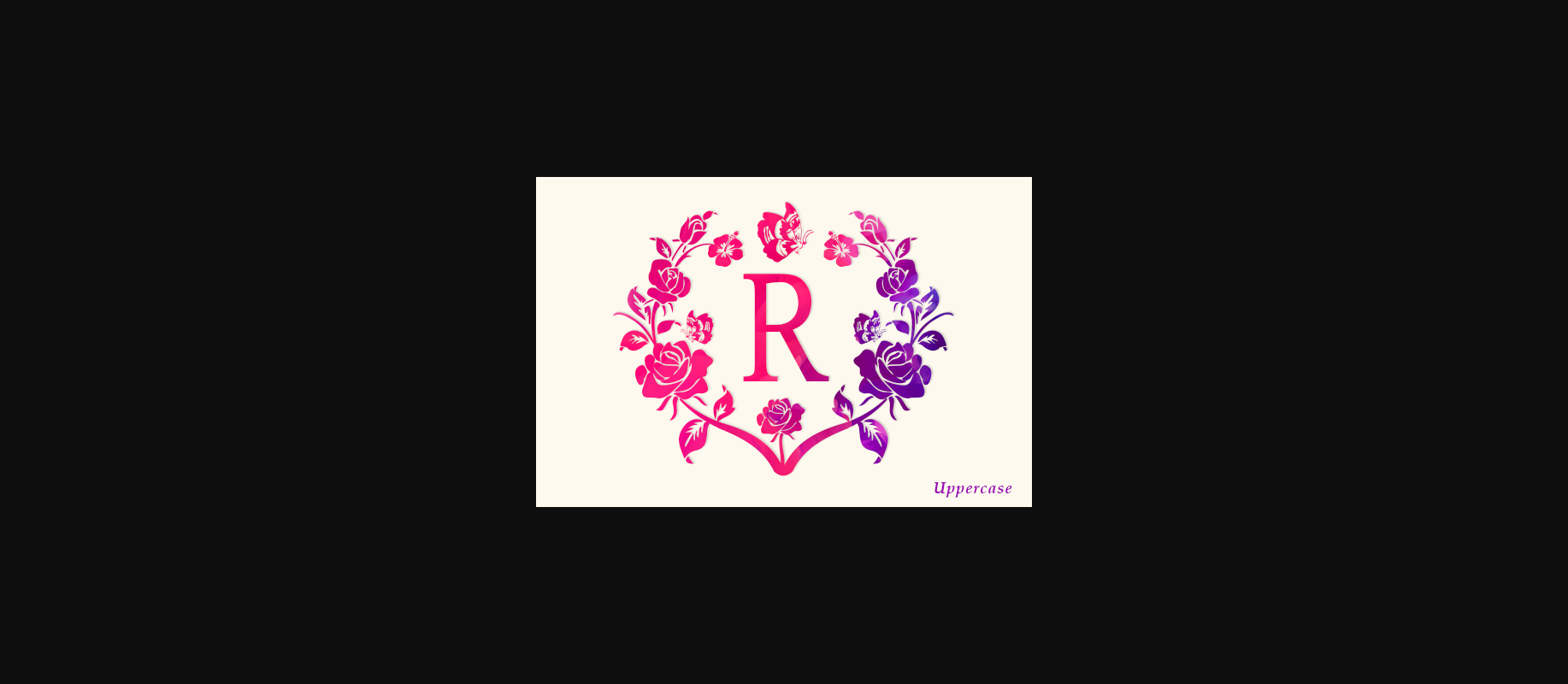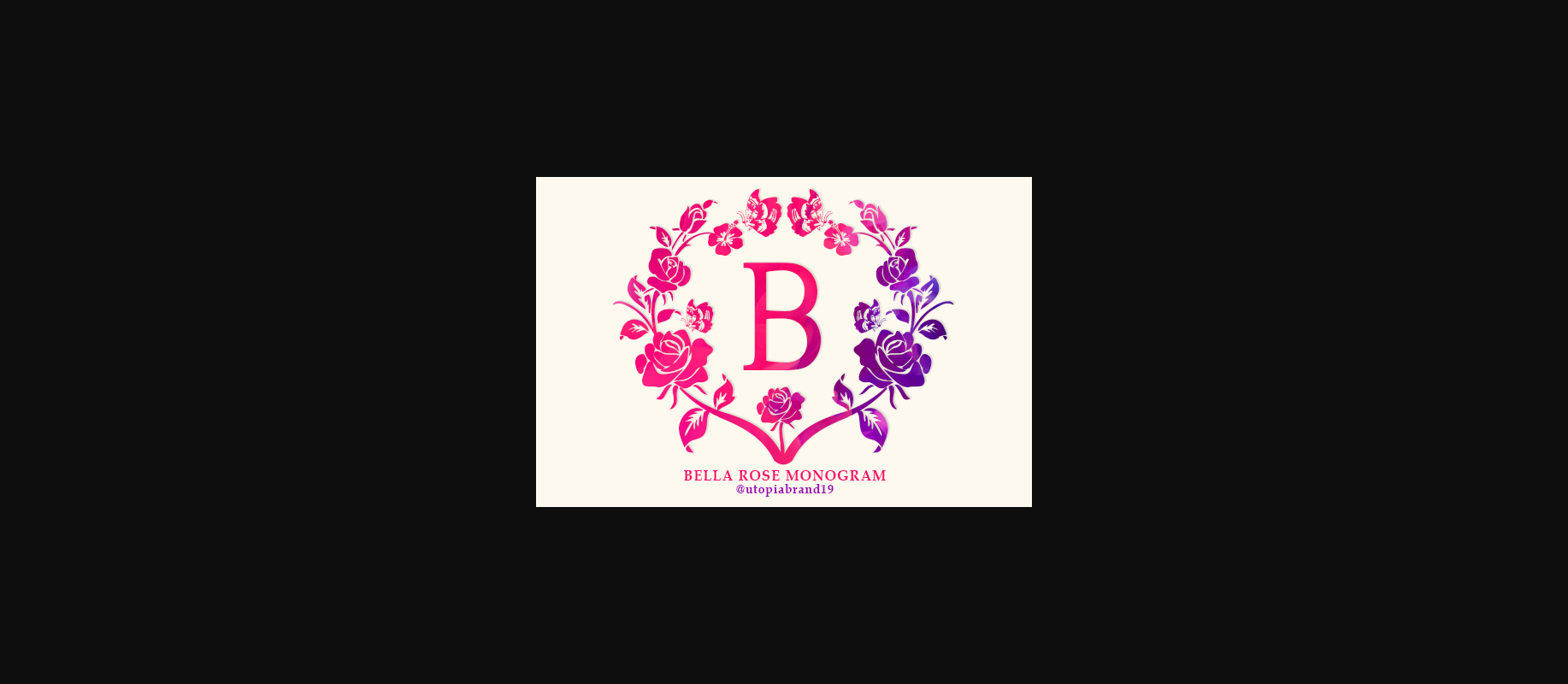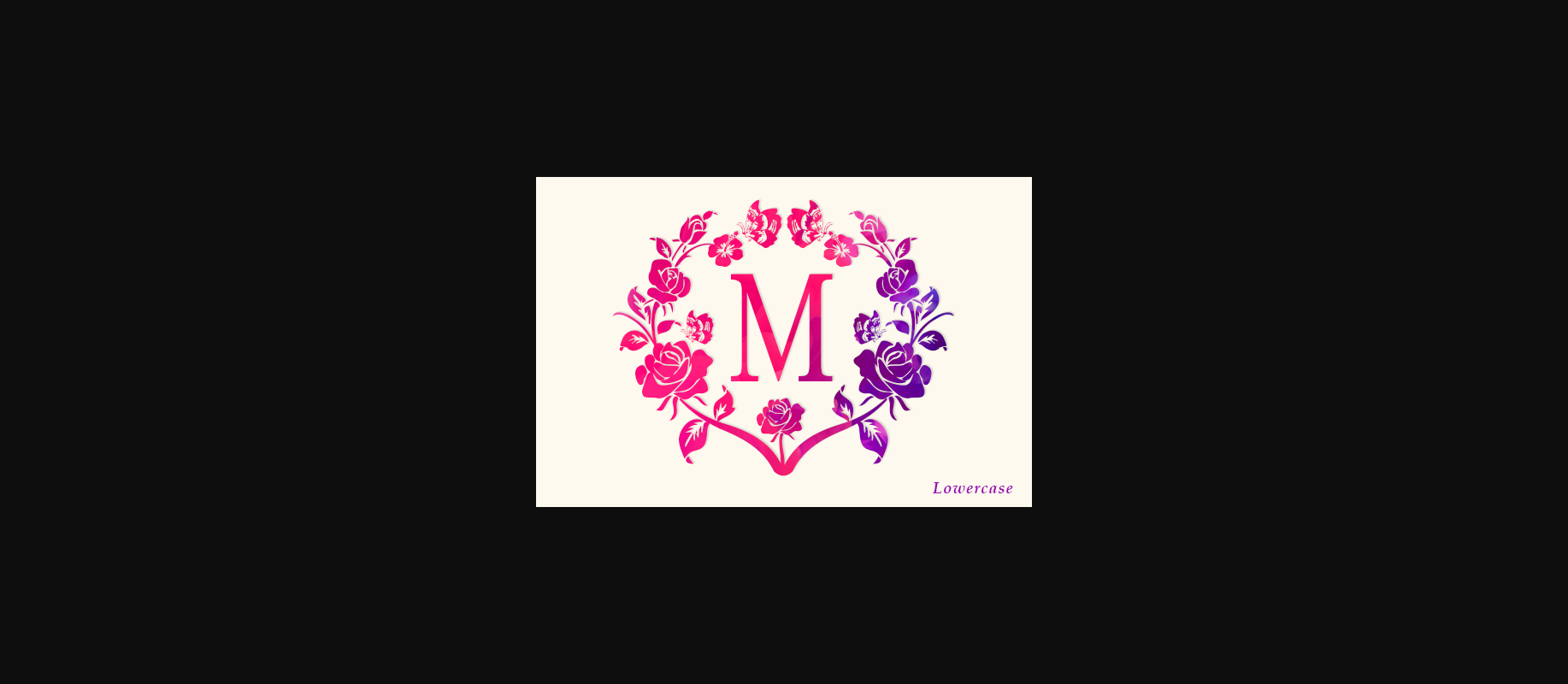
About Bella Rose Monogram Font
Bella Rose Monogram is a charming decorative font. Fall in love with its authentic feel and use it to create gorgeous invitations, beautiful stationary art, eye-catching social media posts, and cute greeting cards.